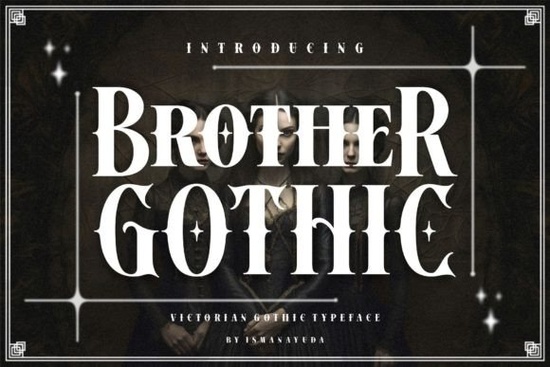
Finding the right typeface can completely shape the mood of a design. The Brother Gothic Font blends Victorian-era letterforms with a gritty gothic and biker-inspired edge, making it a strong choice for projects that need attitude without sacrificing elegance. Whether you're designing a logo, a t-shirt graphic, or a poster for an event, this typeface gives you a distinct look that stands apart from standard blackletter options.
What Makes Brother Gothic Font Different From Other Blackletter Typefaces?
Most blackletter fonts stick closely to medieval script traditions. They look beautiful but can feel a bit stiff or overly ornate for modern use. Brother Gothic Font takes a different approach. It keeps the structure and weight of classic Victorian typography but layers in a rougher, more rebellious personality. Think of it as a blackletter font that spent time around motorcycle clubs and vintage tattoo parlors.
This hybrid style means you get more versatility. It works well in both traditional and edgy contexts something few blackletter fonts can claim. If you've been searching through blackletter fonts with a more modern twist, this one deserves a closer look.
Who Is This Font Designed For?
This typeface speaks to a wide range of creatives:
- Print-on-demand sellers looking for bold designs on apparel, mugs, and accessories
- Logo designers working with brands that want a strong, vintage-inspired identity
- Event organizers creating posters, flyers, or invitations for themed events like tattoo conventions or metal shows
- Crafters and hobbyists who want dramatic lettering for signs, stencils, or vinyl decals
- Small business owners in niches like barbershops, breweries, or streetwear brands
If your project needs to feel powerful, raw, or authentically vintage, this font covers all of those moods in one package.
What Types of Projects Work Best With a Gothic-Biker Style Font?
Here are some practical ways people are using fonts like this one right now:
- Apparel and merch design T-shirts, hoodies, and hats with bold typographic statements
- Album covers and band logos Especially for rock, metal, or punk-inspired artwork
- Branding for niche businesses Think craft distilleries, barbershops, or motorcycle shops
- Social media graphics Quote posts, announcements, or story backgrounds with a dramatic flair
- Wedding and event stationery For couples or hosts going with a dark romantic or vintage-gothic theme
- Book covers and chapter headings Especially in fantasy, horror, or historical fiction genres
The Victorian backbone of this font keeps things readable and structured, while the gothic influence adds character. It doesn't sacrifice legibility for style, which is a common problem with many decorative blackletter typefaces.
Tips for Getting the Most Out of This Typeface
- Pair it with simple sans-serif fonts for body text. A clean secondary font balances the drama of the gothic lettering.
- Use it at larger sizes for headers and titles where its details can shine.
- Experiment with color deep reds, golds, blacks, and muted earth tones all complement this style well.
Start by picking one project a single t-shirt design, a social media post, or a logo concept and build around the typeface. You'll quickly see whether its gothic-Victorian character fits your creative direction. If it does, you've found a typeface that works across many more projects than you might expect.